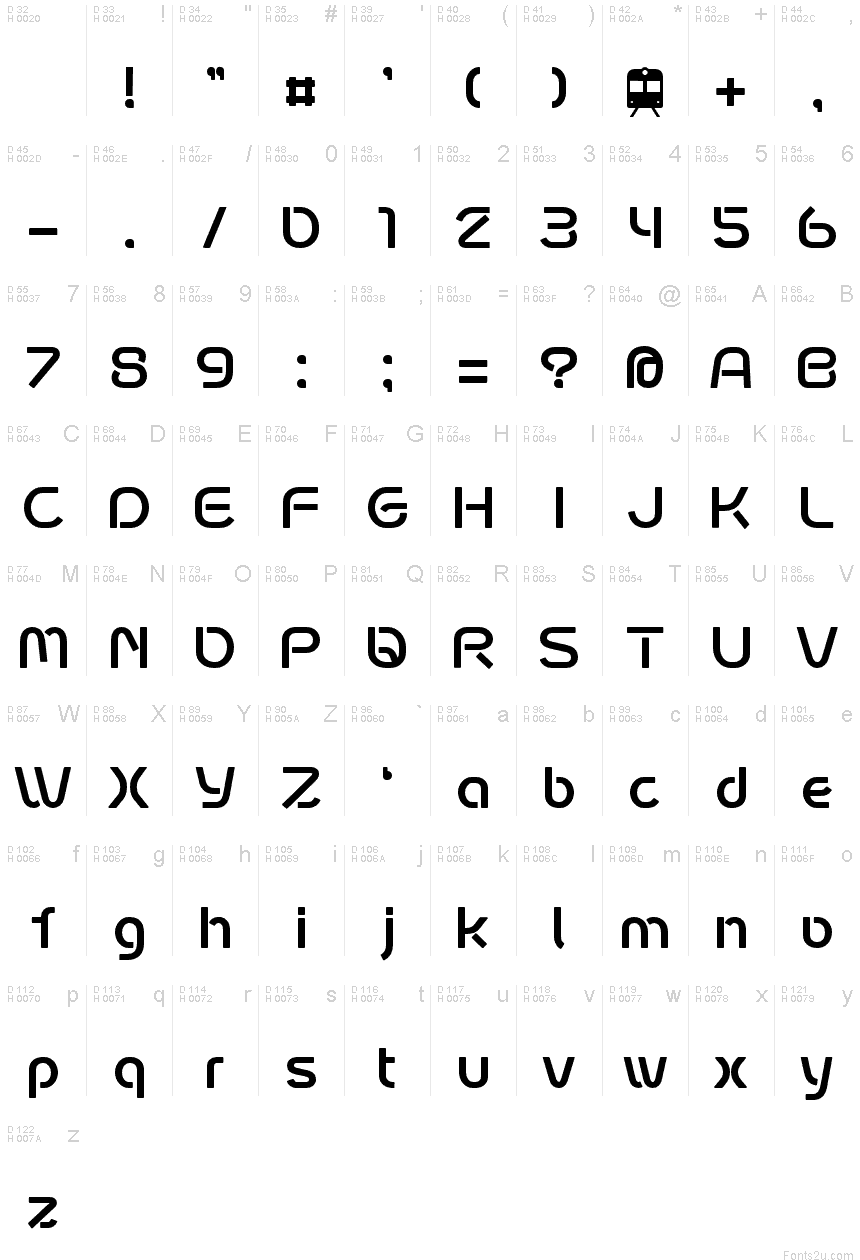
fontopoSUBWAY is a free retro display font with broad rounded letters, deep curves, and a sleek tubular construction shaped by smooth bends. The open-sided forms, near-monoline strokes, clipped corners, and occasional sharp joins recall 1970s transit graphics filtered through a futuristic lens.
Poster design is its clearest home: the long horizontal sweep can shape event graphics for electronic music nights or transport-themed exhibitions with a continuous, logo-like line across the page. It also suits album artwork and fashion packaging. The rounded geometry gives those projects a space-age polish aimed at audiences drawn to retro technology, club culture, and experimental entertainment.
fontopoSUBWAY Regular is a font by fontopo, designed by fontopo in 2012.